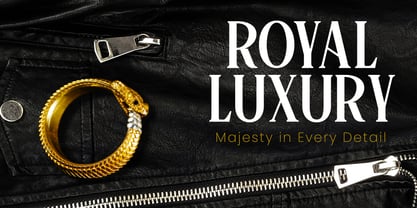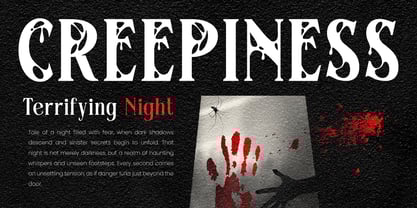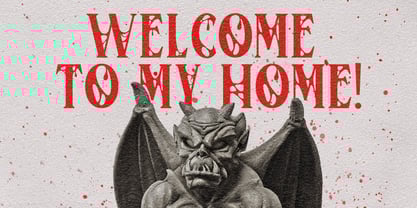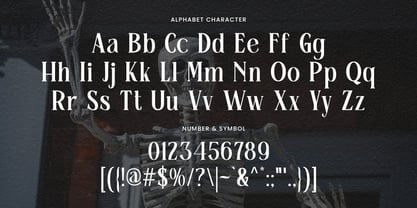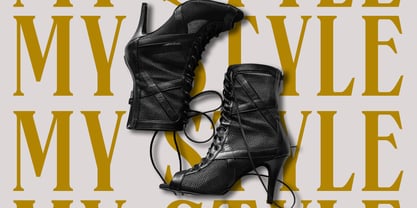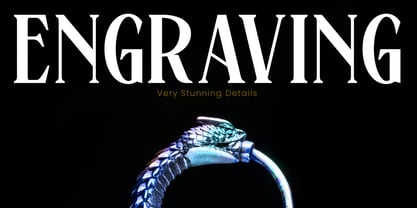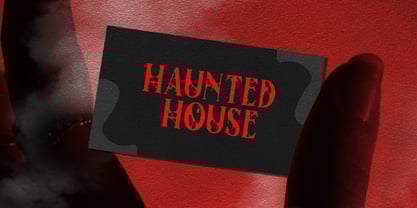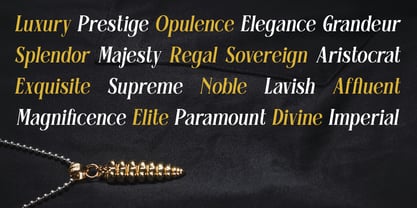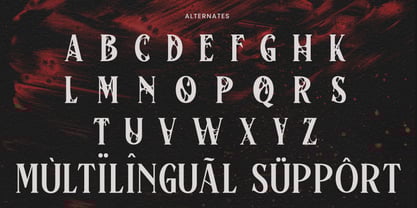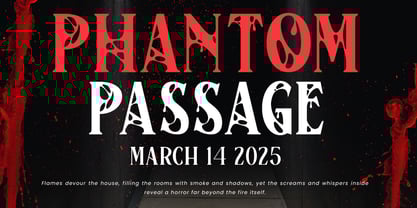
Hollow Thriller
by Jafar07
The Hollow Thriller Font Family was designed by Bakhrudin Ja'far and published by Jafar07. Hollow Thriller contains 2 styles and family package options.
Hollow Thriller is a bold spooky display font that brings instant Halloween vibes with its eerie and dramatic letterforms. Inspired by horror classics, it blends mystery, fear, and bold expression in every curve. The font is carefully crafted with sharp edges, unique cutouts, and balanced kerning to give your designs a chilling yet professional look. Perfect for Halloween posters, party invitations, horror titles, packaging, social media graphics, and more. Add Hollow Thriller to your collection today and set a dark, unforgettable mood in your designs!